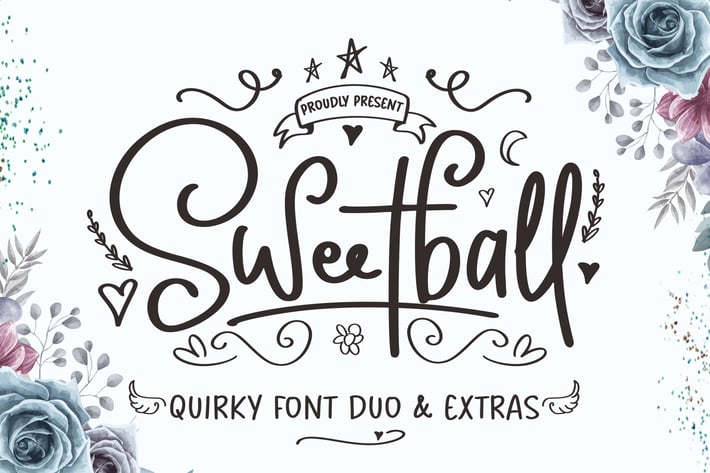
Sweetball Craft Font Duo
Sweetball is a ravishing script font with a contemporary atmosphere and impeccable form. Inspired by timeless modern calligraphy, Sweetball was designed to enhance the beauty of your projects, specially in craft project.